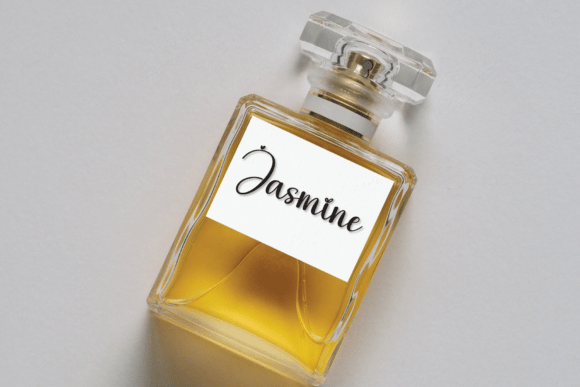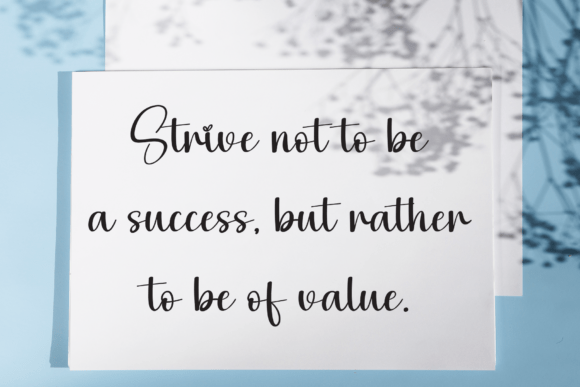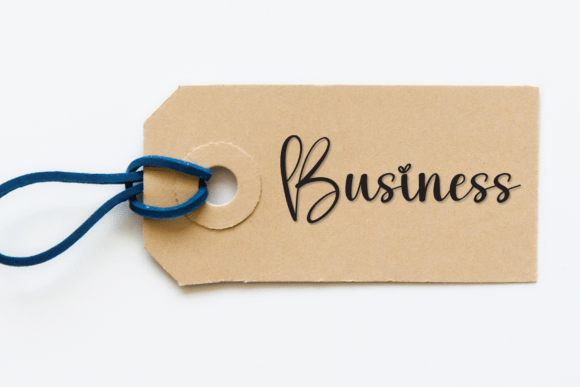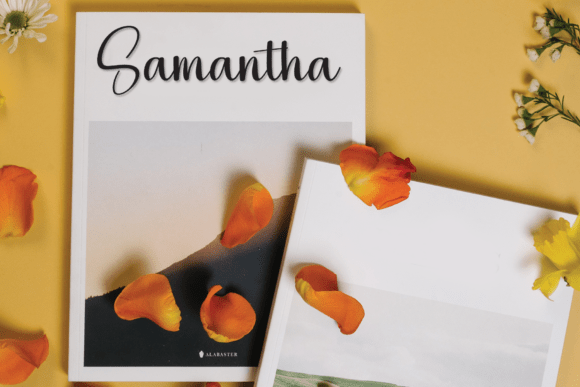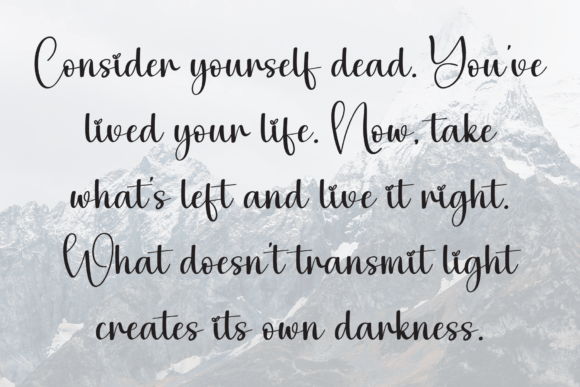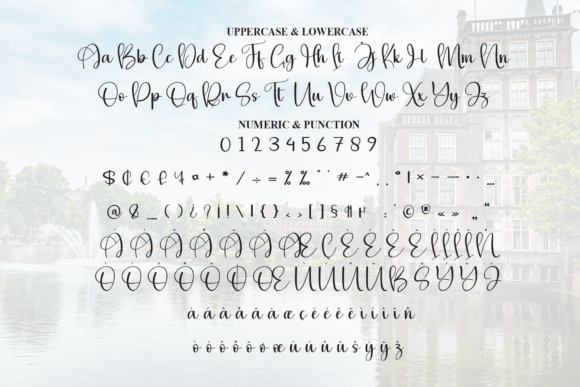
Discover the Magic of Amsterdam Font
As a designer, there’s nothing quite like the rush of creating something truly unique and special. It’s that moment when your imagination comes to life, and you see your vision take shape on the screen. For those of us who live for that creative high, we’re always on the lookout for tools that can help us push the boundaries of our art.
That’s where Amsterdam Font comes in – a special collection of creative products designed to give you an extraordinary experience. With its latest style letters, you’ll be able to add a touch of sophistication to everything from wall displays to wedding invitations, social media logos to product packaging. Whether you’re a seasoned pro or just starting out, Amsterdam Font is a valuable addition to any designer’s toolkit.
Amsterdam Font Key Features
- Unique Characteristics: Amsterdam Font features a unique, hand-drawn design with subtle flair and personality, making it perfect for creative projects and branding.
- Weight and Style Options: Amsterdam Font is available in multiple weights, including Light, Regular, Medium, and Bold, as well as italics and obliques, offering a wide range of styling options.
- Font Metrics: Amsterdam Font has a x-height of 0.43 and an ascender height of 0.64, making it well-suited for body text and other applications where readability is key.
Amsterdam Font Review
I recently had the chance to work with the Amsterdam font, and here’s my honest review.
- The Amsterdam font has a unique, elegant feel that’s perfect for creative projects and publications.
- The font is highly legible, even at small sizes, making it ideal for body text.
- The font family includes a wide range of weights and styles, giving designers a lot of flexibility.
- The Amsterdam font is also highly customizable, allowing designers to fine-tune the font to their needs.
- The Amsterdam font may not be the best choice for headlines or titles, as it can be a bit too elegant and may get lost on larger sizes.
- The font’s unique feel may not be suitable for all design projects or audiences.
- The Amsterdam font may require some time to get used to, as it has a distinctive look and feel.
The Amsterdam font is a solid choice for designers who are looking for a unique, elegant font for their creative projects. While it may have some limitations, the font’s strengths far outweigh its weaknesses. With a little practice and experimentation, designers can unlock the full potential of the Amsterdam font and create truly stunning designs.
Experiment with different font sizes and combinations to achieve the desired aesthetic. The Amsterdam Font is ideal for creating elegant and sophisticated designs, making it perfect for wedding invitations, business cards, or social media graphics.
Use the Amsterdam Font to create intricate designs, logos, or typography-based artworks. Its unique characteristics make it suitable for various projects, including branding materials, posters, or magazine layouts.
Use the Amsterdam Font to create professional-looking presentations, reports, or documents. Its elegant design makes it suitable for formal and business-related content.
The Amsterdam Font is ideal for:
- Business cards and branding materials
- Social media graphics and advertising
- Magazine layouts and editorial content